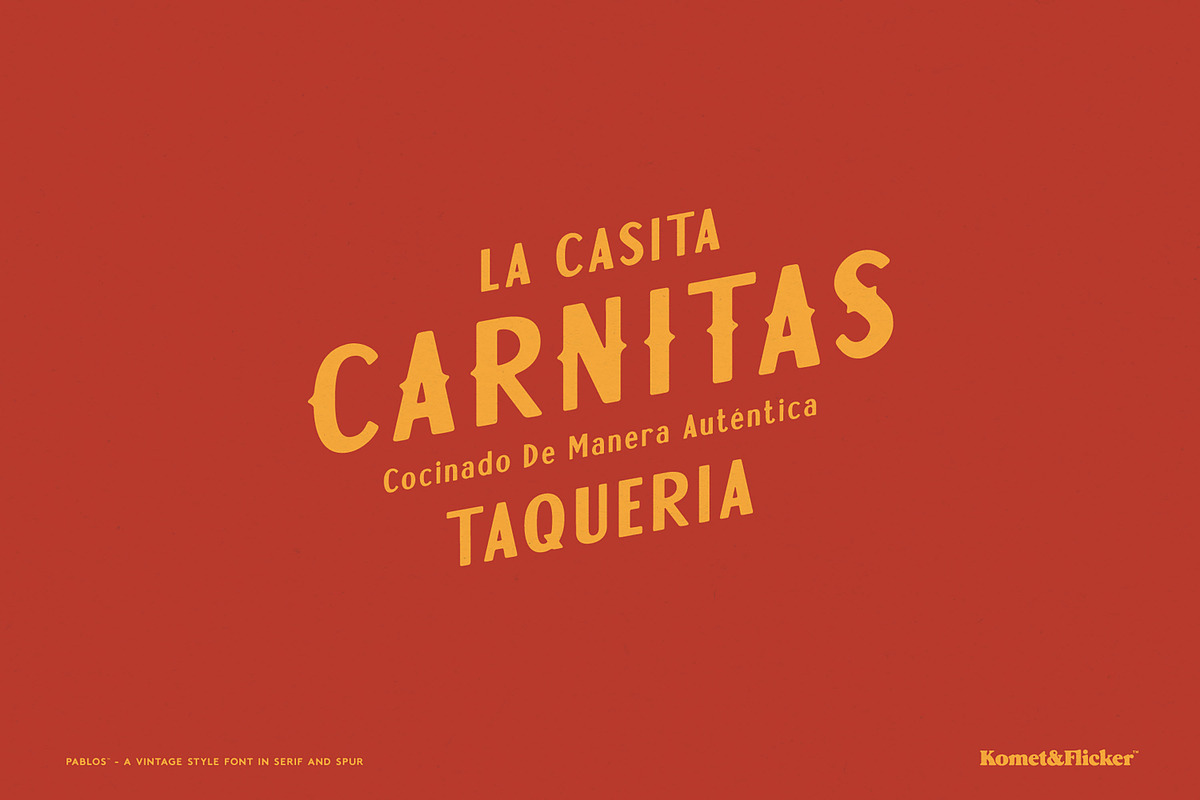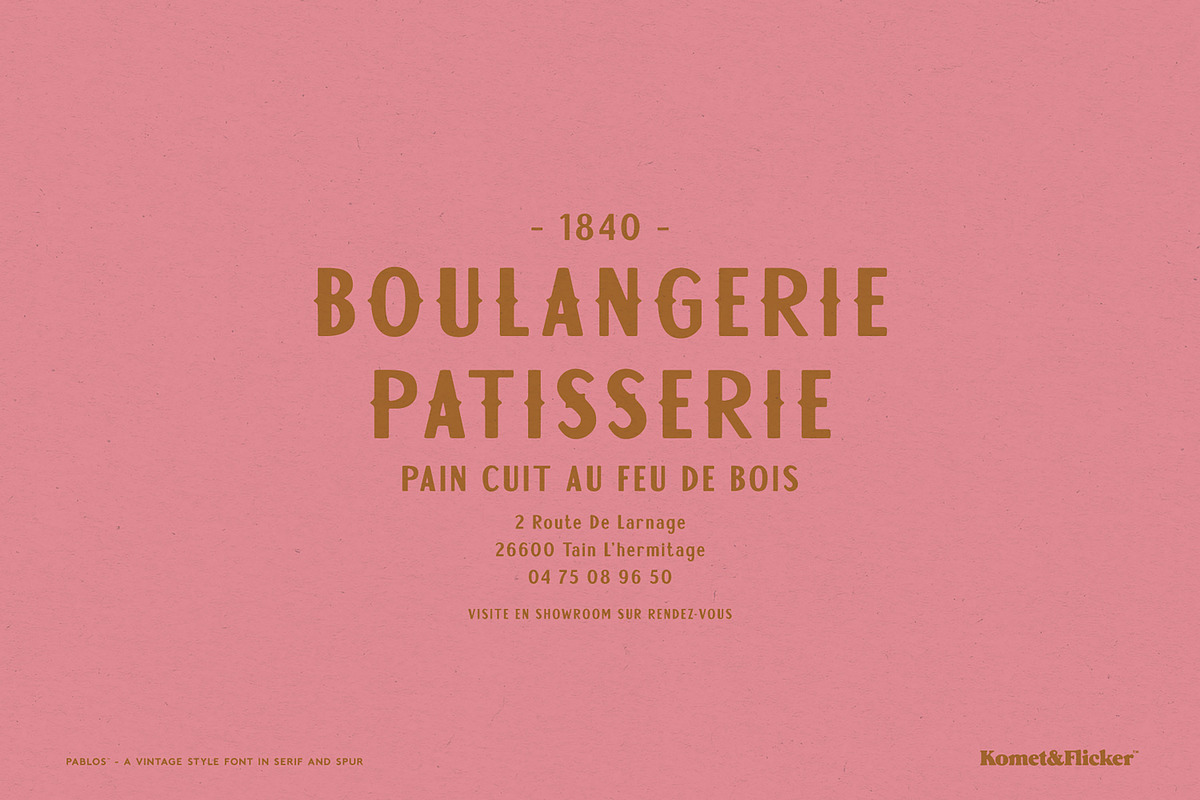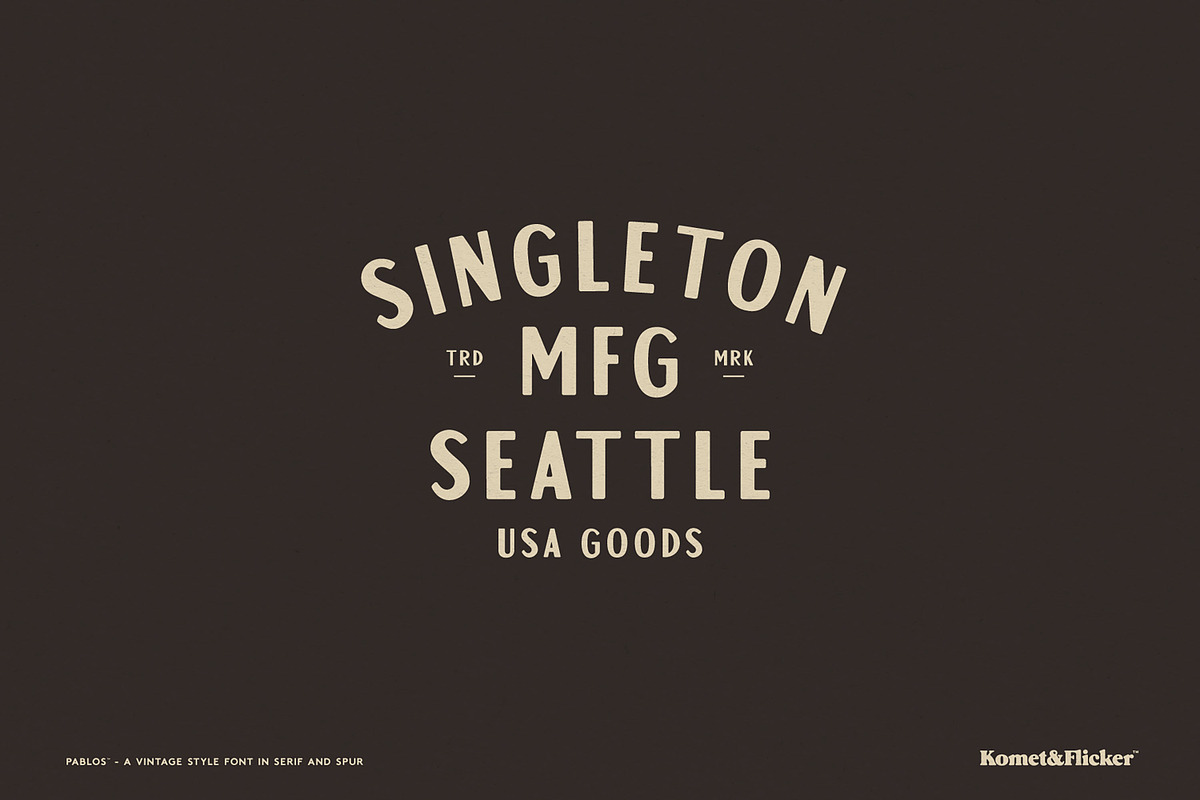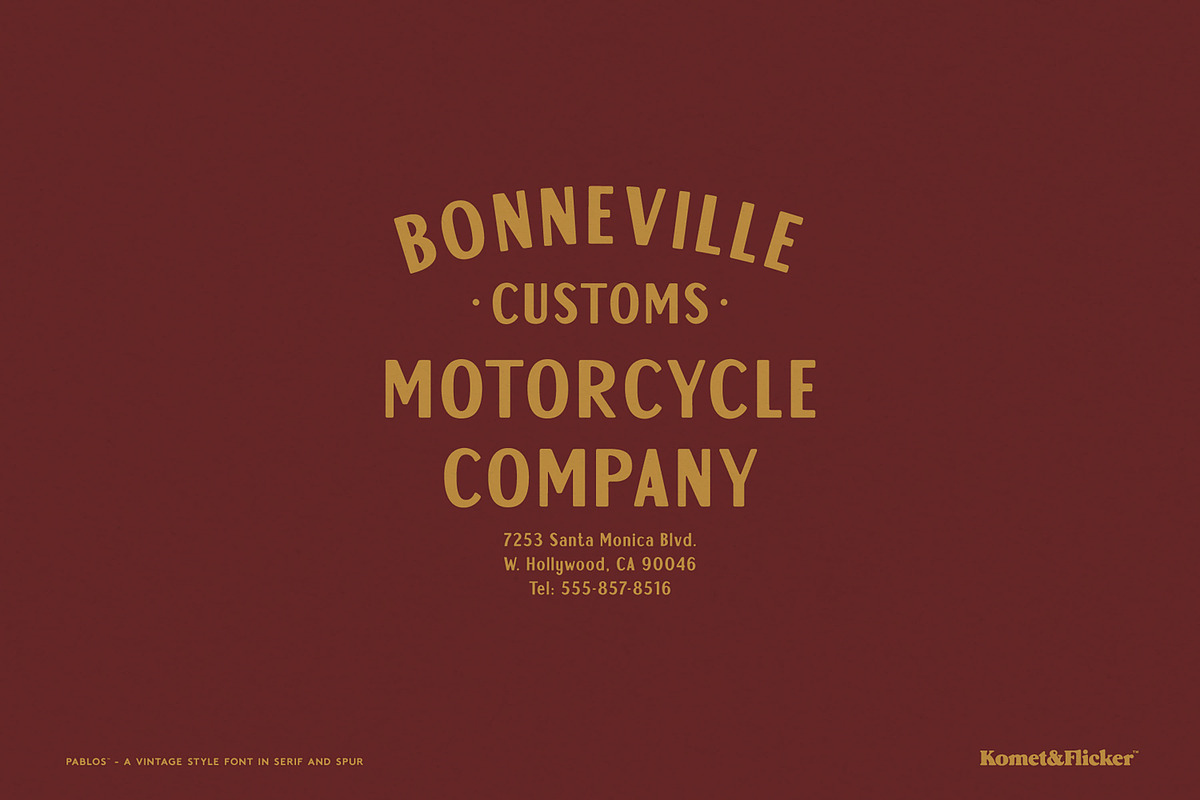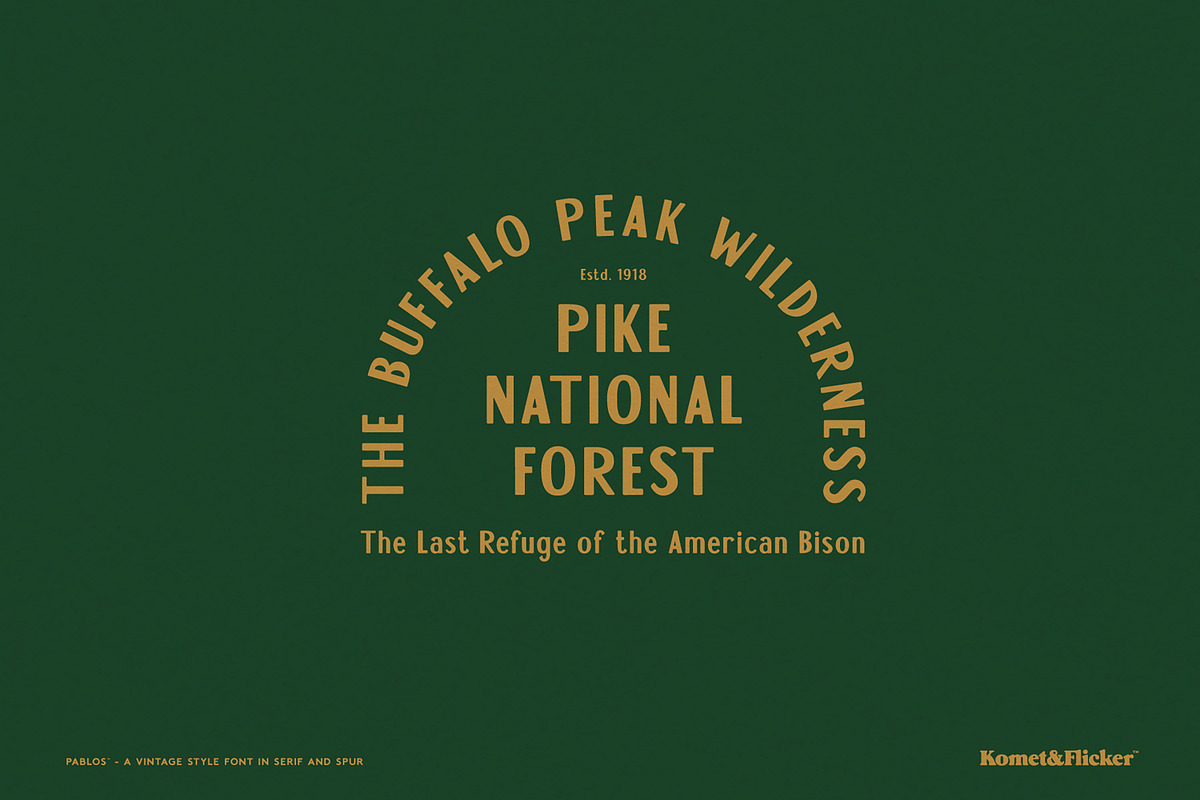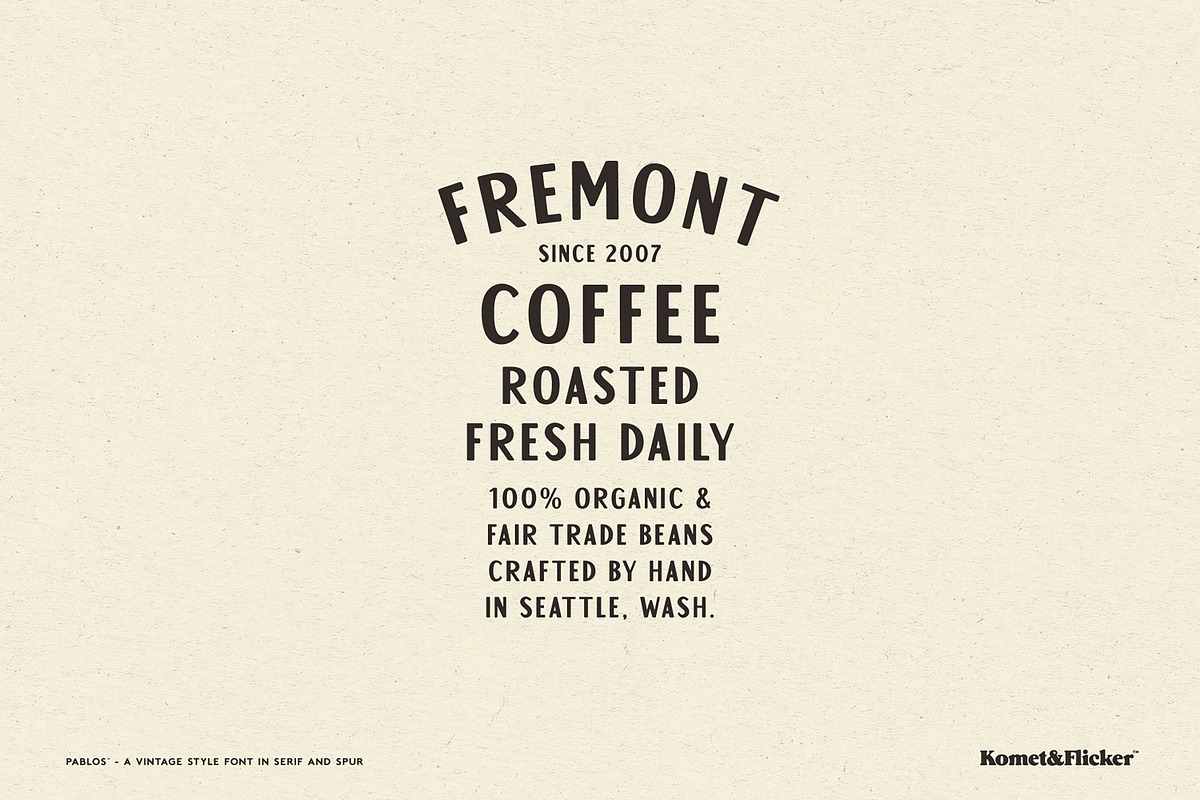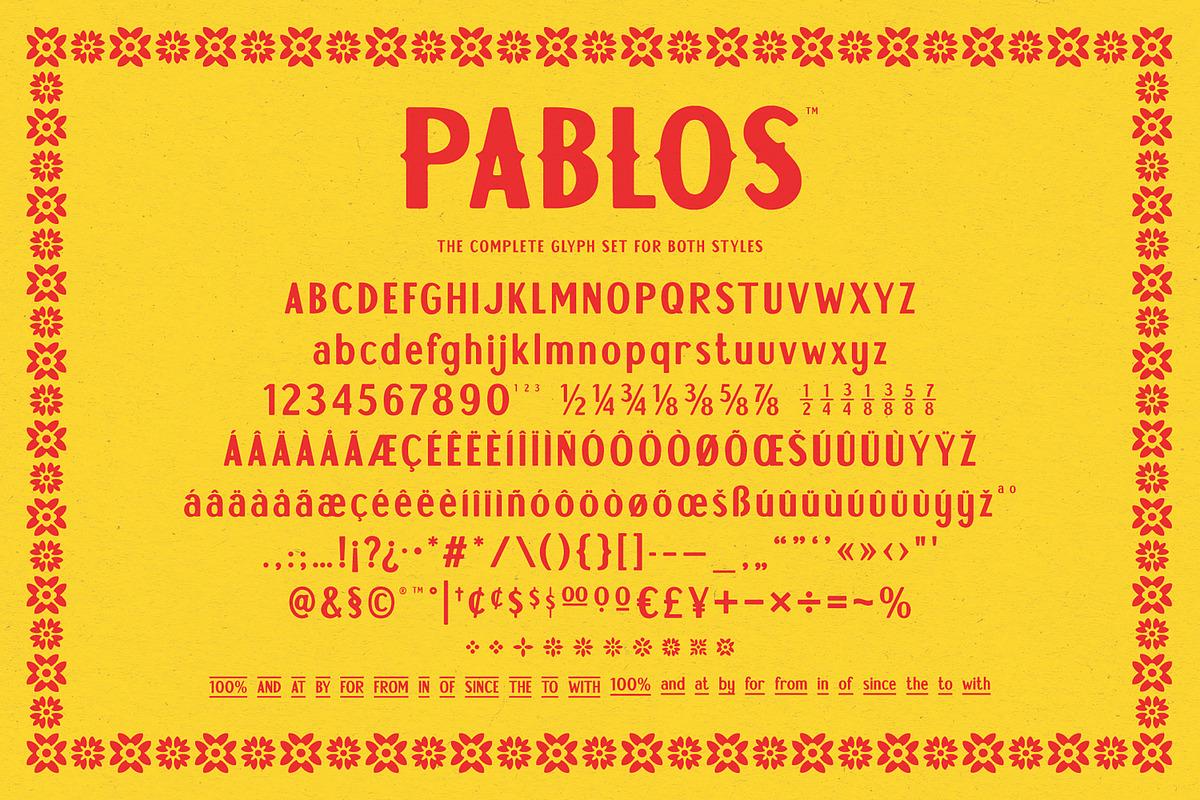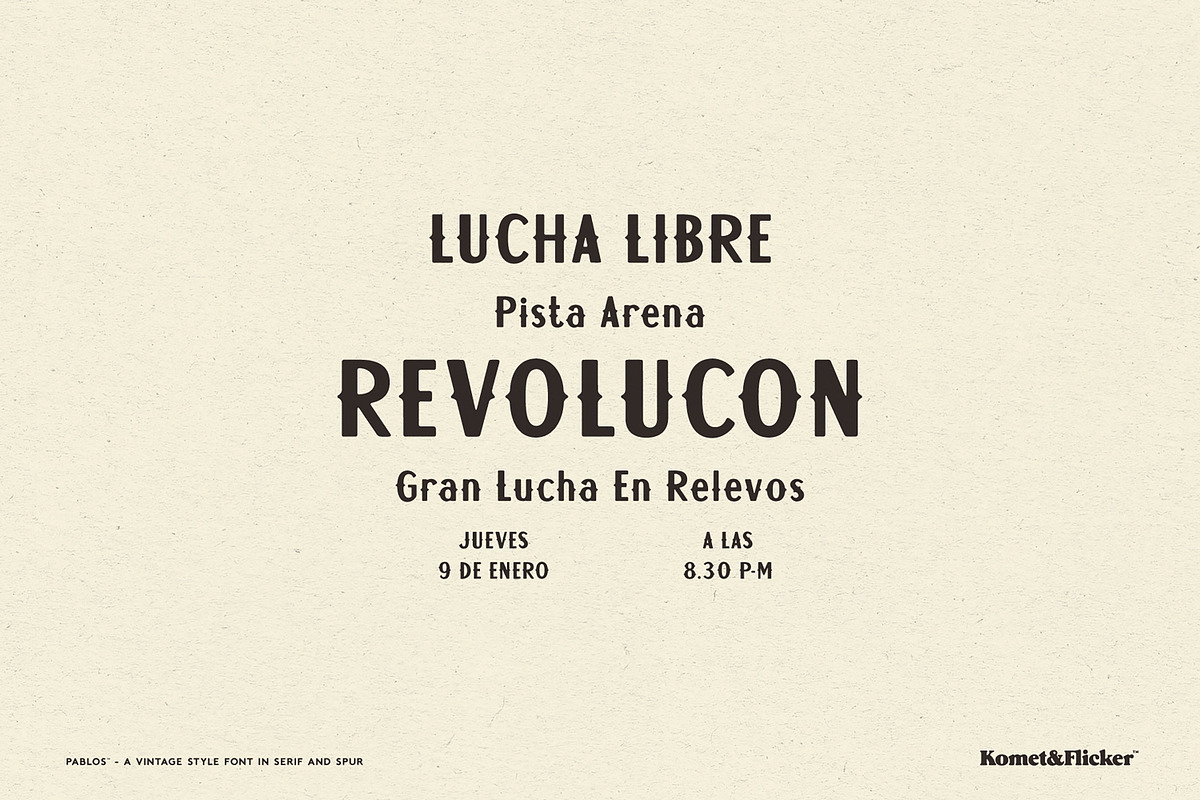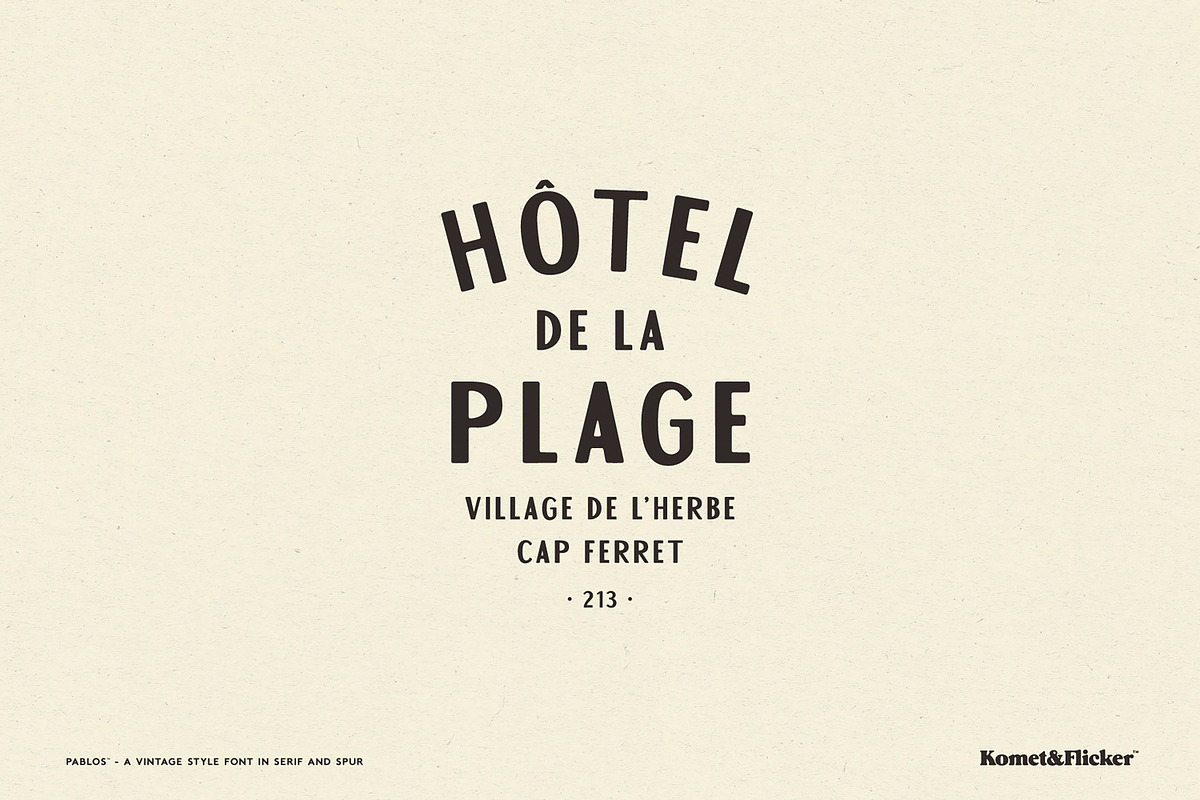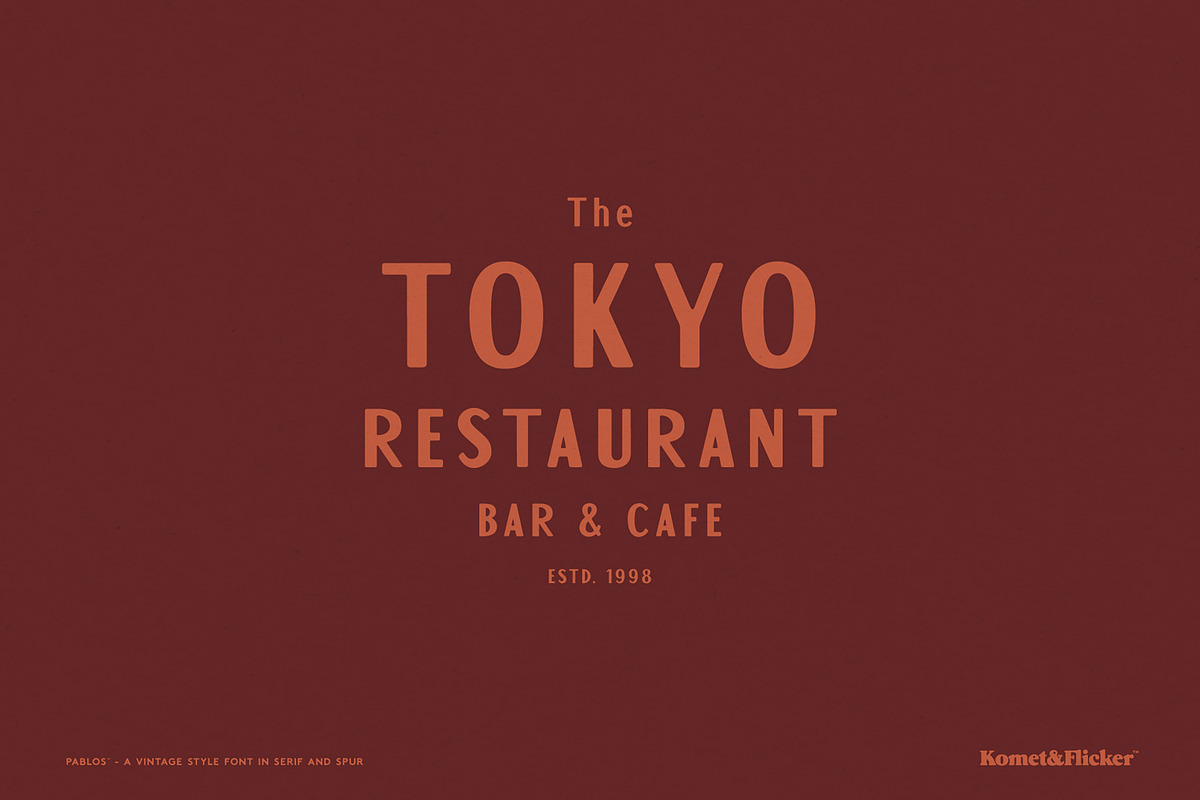
Pablos - Sans & Spur
Pablos is an all-caps vintage style typeface that channels the lively spirit of hand-painted signage from south-of-the-border markets and storefronts. Drawing inspiration from the colorful street typography found throughout Latin America, Pablos brings an authentic, lived-in warmth to any design it touches.
This font comes in two uniques styles, a clean sans serif and an ornate version complete with old-timey Western style spurs. With its nostalgic yet contemporary feel, Pablos works beautifully for branding, logos, packaging, posters, menus, and other designs that call for a personal, handcrafted touch. The set also comes with 12 custom connecting words in two different styles, letting you link phrases naturally and add an extra layer of flow and charm to your compositions.
THIS FONT COMES IN TWO STYLES
Pablos Regular
Pablos Spur
THIS FONT INCLUDES
Full A-Z uppercase and lowercase basic latin characters
Select European specific characters
Numbers, punctuation, and select symbols
Pre-made fractions in two styles
Set of 12 custom connecting word glyphs in two styles
Set of 10 Mexican folk art inspired dingbats